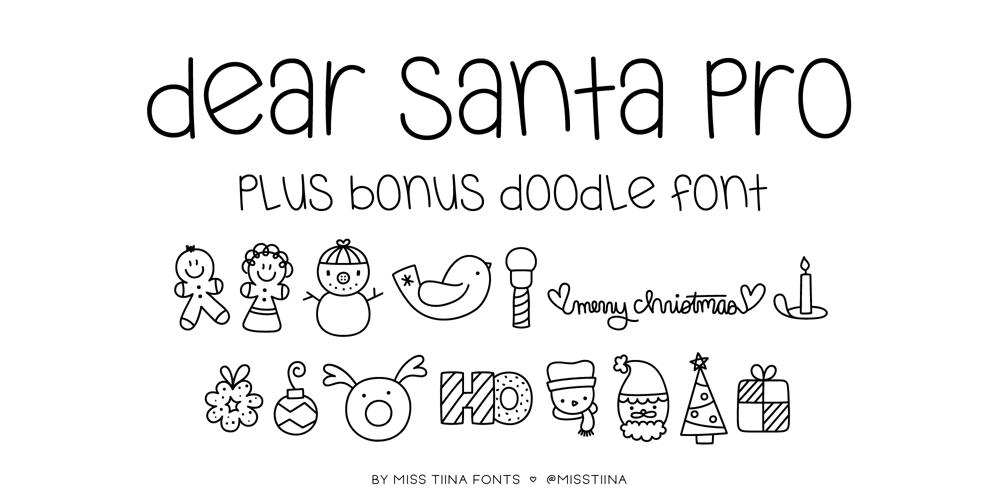
MTF Dear Santa Pro
MTF Dear Santa Pro font
MTF Dear Santa Pro Font Family was designed by Tina Raparanta and published by Miss Tiina Fonts. MTF Dear Santa Pro contains 2 styles and family package options. If you’re writing Santa a letter, use this adorable, handwritten childlike font! Dear Santa PRO not only gives you inspiration on how to start the letter, but it also has neat and original characters. This typeface duo also comes with some cute Christmas doodles to complement your writing. Have fun, and create something spectacular this Christmas!